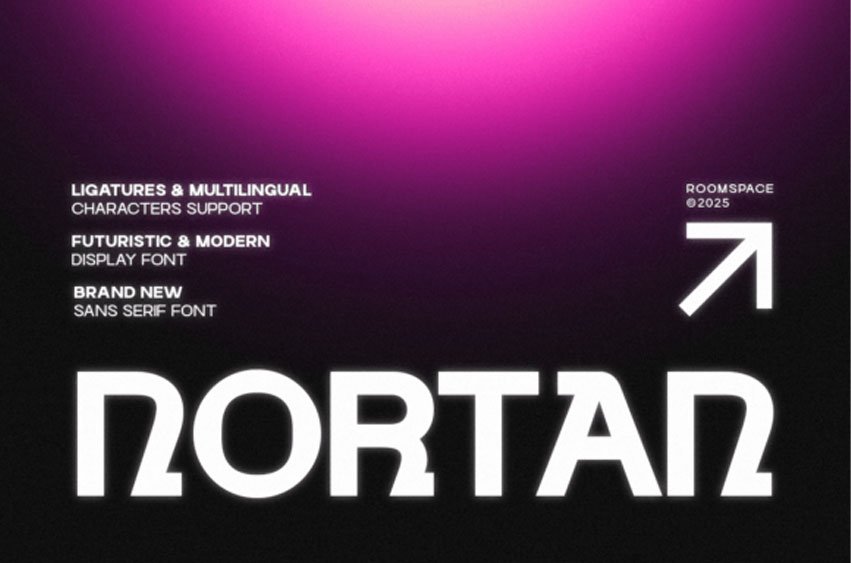
Nortan Font is a sleek, bold display sans-serif font that embodies a futuristic and ultra-modern aesthetic, perfect for cutting-edge design.
This typeface is characterized by its slightly rounded, geometric forms and unique glyphs, including extensive ligatures and multilingual support, ensuring global design versatility. The Nortan font makes a strong statement with its heavy weight and structured appearance, ideal the technology and gaming industries.
Use the Nortan sans serif font to create commanding headlines, impactful branding, and dynamic digital interfaces that demand attention. The unique character shapes and contemporary flair of the Nortan typeface ensure your project looks effortlessly advanced and distinctive.